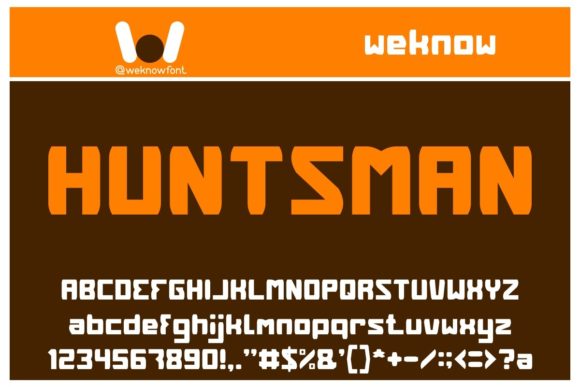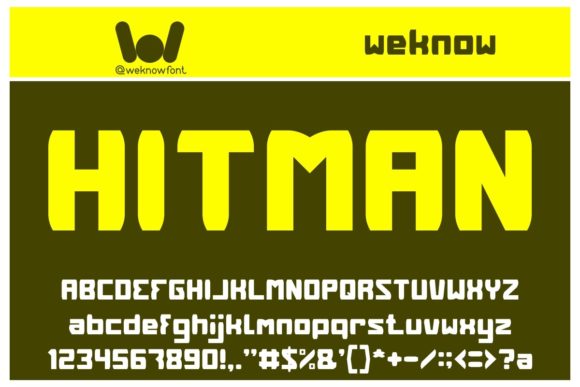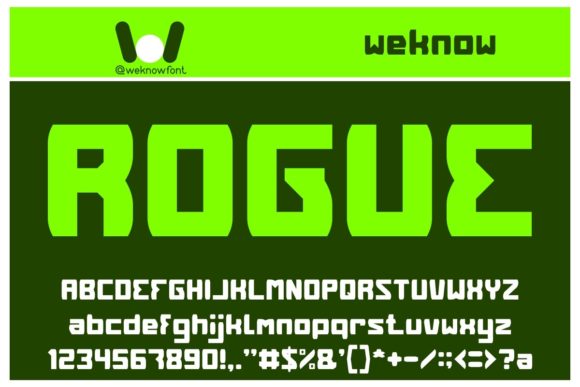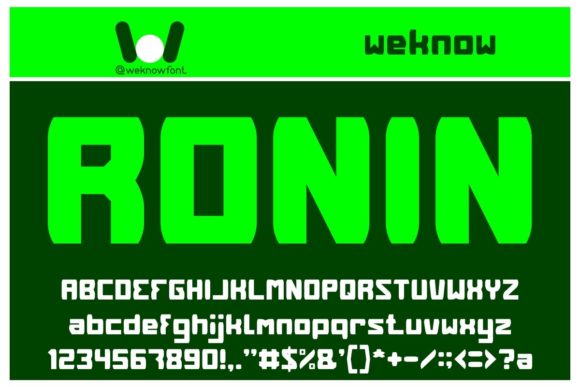
Unlock the Power of Head Hunter Font: Elevate Your Creative Vision
Have you ever stared at a blank canvas, waiting for that elusive spark of inspiration to strike? The blank page can be intimidating, but the thrill of bringing a new idea to life is what drives creatives like us to push the boundaries of innovation. For designers, the right font can be the missing piece that sets their project apart.
Enter the Head Hunter Font, a versatile display font designed to make a statement. With its range of themes and styles, this font is perfect for logos, headlines, and branding. Whether you’re working on a corporate identity, a music video, or a comic book cover, the Head Hunter Font has got you covered. Its value lies in its adaptability and the unique touch it brings to any design project.
Head Hunter Font Key Features
- Font Family: Head Hunter is a sans-serif font family, designed specifically for use in resumes, business cards, and other professional materials.
- Unique Characteristics: Head Hunter features a clean and modern design, with a subtle flair at the ends of the letters, giving it a professional and approachable feel.
- Font Weight: The font family includes 6 font weights, from Light to Bold, allowing designers to create a range of visual effects and emphasize key information.
Head Hunter Font Review
I recently had the chance to work with the Head Hunter Font, and I must say it’s a unique addition to any design project. ✨ The font’s bold and edgy feel is perfect for creating a statement piece, and it pairs well with modern and industrial designs.
The font’s bold weight is particularly effective for headings and titles, making it easy to draw attention to key information. ✨ Additionally, the font’s sans-serif design makes it highly legible, even at smaller font sizes.
- ⚠️ The font may not be suitable for all design projects, as its bold and edgy feel may not be suitable for more conservative or traditional designs.
- ⚠️ The font’s limited character set may require additional font styles or combinations to achieve the desired look.
Overall, I would recommend the Head Hunter Font for designers looking to add a bold and edgy touch to their projects. However, it’s essential to consider the font’s limitations and potential suitability for your specific design needs.
Head Hunter Font Practical Application Guide
Getting the Most Out of the Head Hunter Font
Here are some tips for getting the most out of the Head Hunter font:
- Use it for bold, eye-catching headlines.
- Pair it with a clean sans-serif font for body text.
The Head Hunter font is commonly used for:
- Restaurant and cafe menus.
- Event invitations and signage.
Alternatives to Head Hunter Font
Great Vibes is a modern, elegant script font perfect for creating a sophisticated and stylish look. It’s ideal for use in branding, advertising, and editorial design. Great Vibes has a similar feel to Head Hunter Font, but with a more refined and polished appearance.
Alex Brush is a beautiful, handwritten font that exudes a sense of luxury and sophistication. It’s perfect for use in high-end branding, packaging, and advertising design. While it shares some similarities with Head Hunter Font, Alex Brush has a more intricate and detailed appearance.
Dancing Script is a lively, energetic script font that’s perfect for creating a fun and playful atmosphere. It’s ideal for use in social media graphics, blog posts, and other casual design projects. Dancing Script has a more carefree and whimsical feel than Head Hunter Font, but can still be used for more serious projects with the right design.